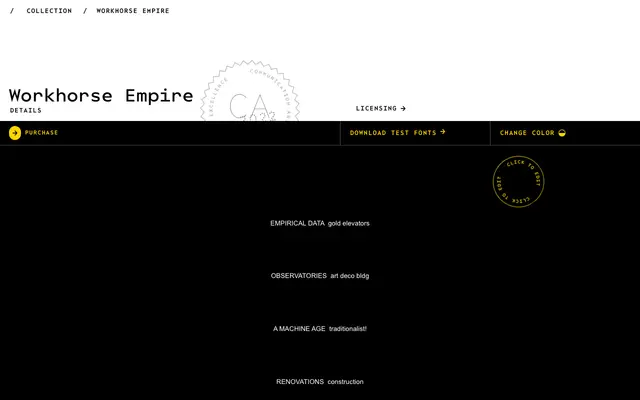
Workhorse Empire
Workhorse Type Foundry · Adrian Kimball · 2022
A 72-style revival of the 1940s Empire typeface by Adrian Kimball, extended with weights, widths, obliques and a reverse-oblique cut across a full variable font.
The original Empire typeface offered only a single weight and width with no lowercase, so Adrian Kimball's 2022 revival rebuilds it from the ground up with eight weights, three widths and three slant variants including a reverse oblique. The family ships as a variable font with weight, italic and width axes, plus three stylistic sets covering an alternate a, uniform k, and simplified g. With 481 glyphs and support for 220 languages, it stretches well beyond the narrow scope of its source material.
A geometric display sans with strong vertical stroke uniformity and condensed proportions rooted in the original Empire typeface, placing it firmly in the geometric sans tradition with a display-weight character.